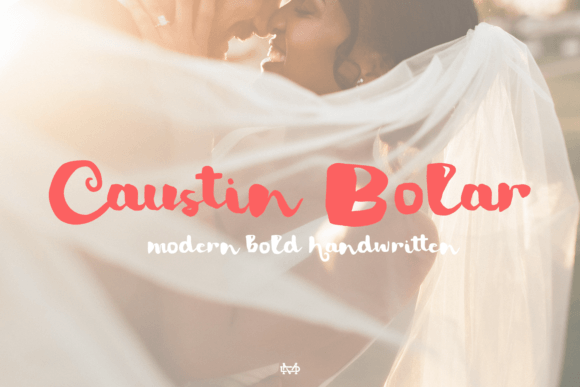
Introducing the Caustin Bolar Font: The Symphony of Style for Your Creative Compositions
Journey into the realm of artistic expression with Caustin Bolar, a captivating script font that dances across your designs like a melody in motion. Its bold and sweeping strokes are meticulously crafted to evoke the energy and passion of handwritten notes, capturing the essence of creativity in every letterform.
Unleash the Power of Visual Harmony:
Caustin Bolar's innate ability to blend seamlessly with a vast array of design projects is a testament to its versatility. Whether you're crafting elegant logos, captivating song titles, or any other creative endeavor, this font seamlessly adapts to your vision, enhancing it with its inherent charm.
A Symphony of Expression:
With Caustin Bolar, the possibilities for creative expression are endless. Its organic flow and dynamic curves lend themselves effortlessly to a myriad of design styles. Enchant your audience with whimsical invitations, create striking social media posts that captivate the eye, or craft stunning posters that ignite the imagination.
The Soul of Song Titles:
For those with a passion for music, Caustin Bolar emerges as the perfect companion for crafting song titles that resonate with both visual and emotional impact. Its bold strokes and expressive character bring an undeniable energy to your musical creations, inviting listeners to delve into the depths of your sonic tapestry.
Ignite Your Creative Spark:
Let Caustin Bolar be the spark that ignites your creative genius. Its dynamic presence will transform your designs into captivating works of art, leaving an indelible mark on your audience. Embrace the limitless potential of this remarkable script font and watch as your creative vision flourishes.